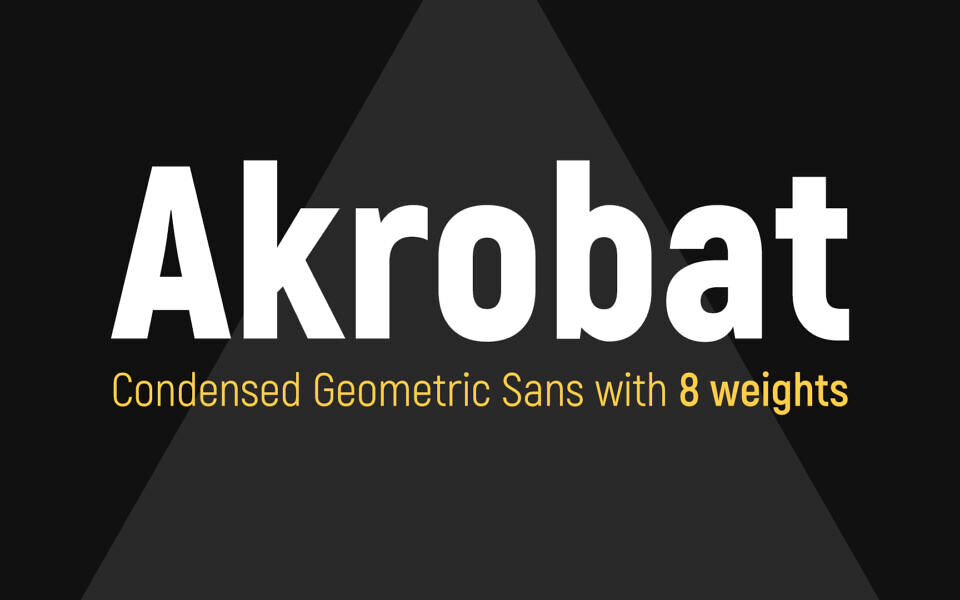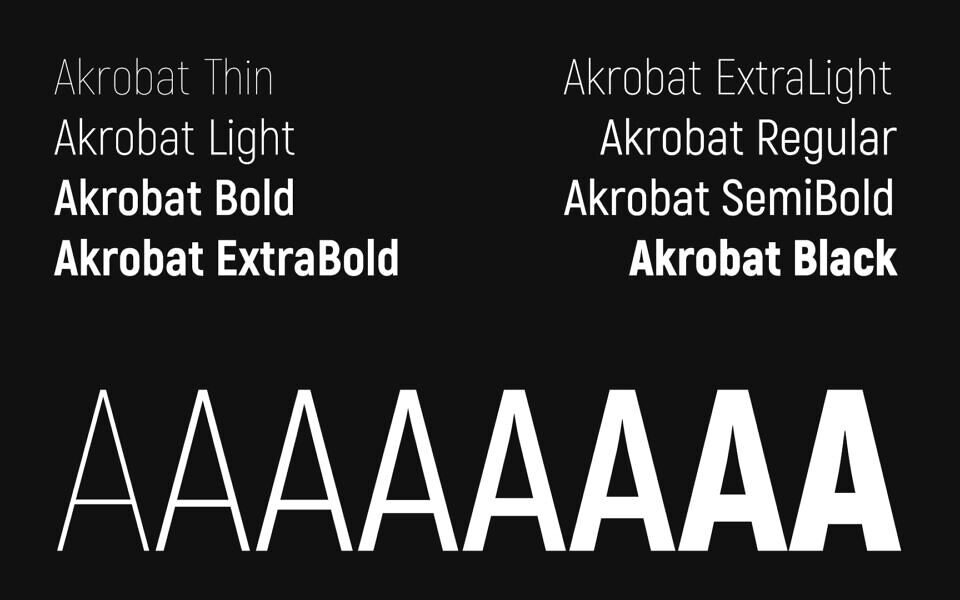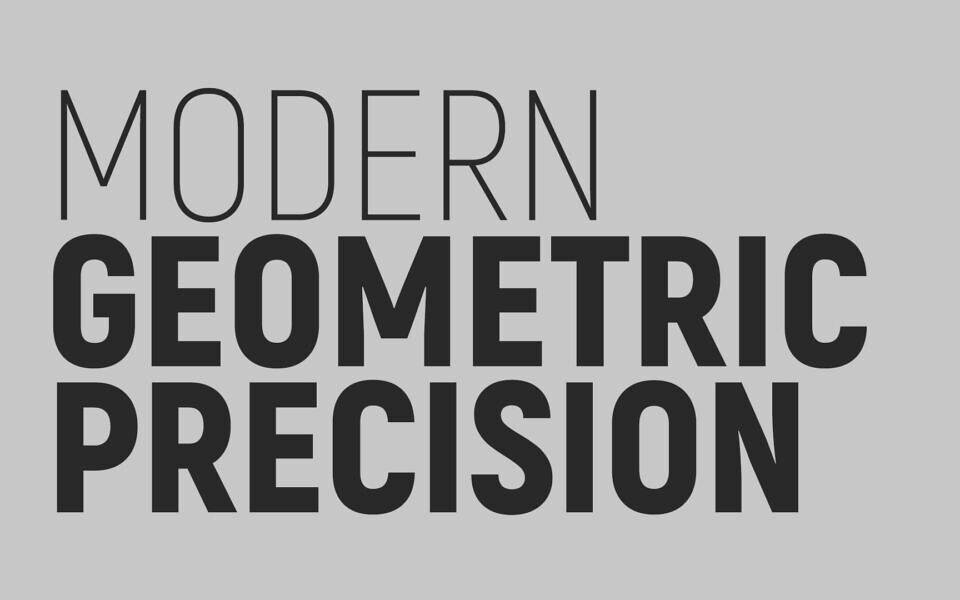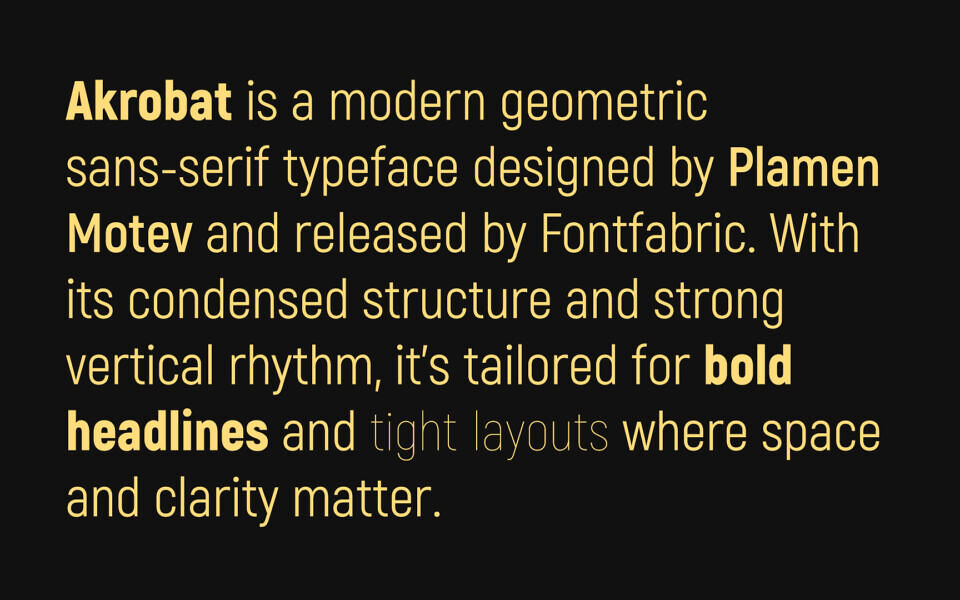
Akrobat is a modern geometric sans-serif typeface designed by Plamen Motev and released by Fontfabric in July 2016. With its condensed structure and strong vertical rhythm, it’s tailored for bold headlines and tight layouts where space and clarity matter.
Akrobat is perfect for display typography, branding, and digital interfaces. Its condensed proportions, which maintain legibility at both large and small sizes, make it an excellent choice for designers seeking a space-efficient yet stylish geometric typeface. Whether you’re working on posters, logos, banners, or website headers, this font provides excellent readability and a modern visual appeal.
With a total of 8 styles, advanced OpenType features, and multilingual support, Akrobat ensures versatility and high-quality typography for every project.